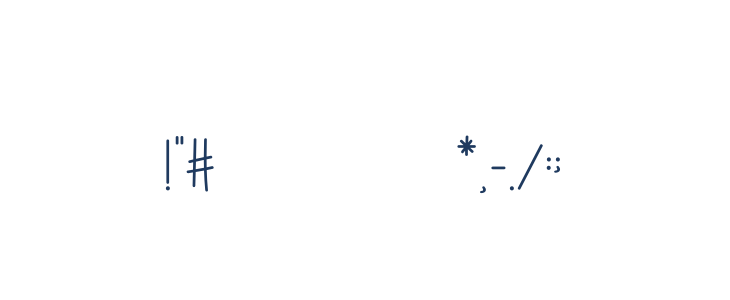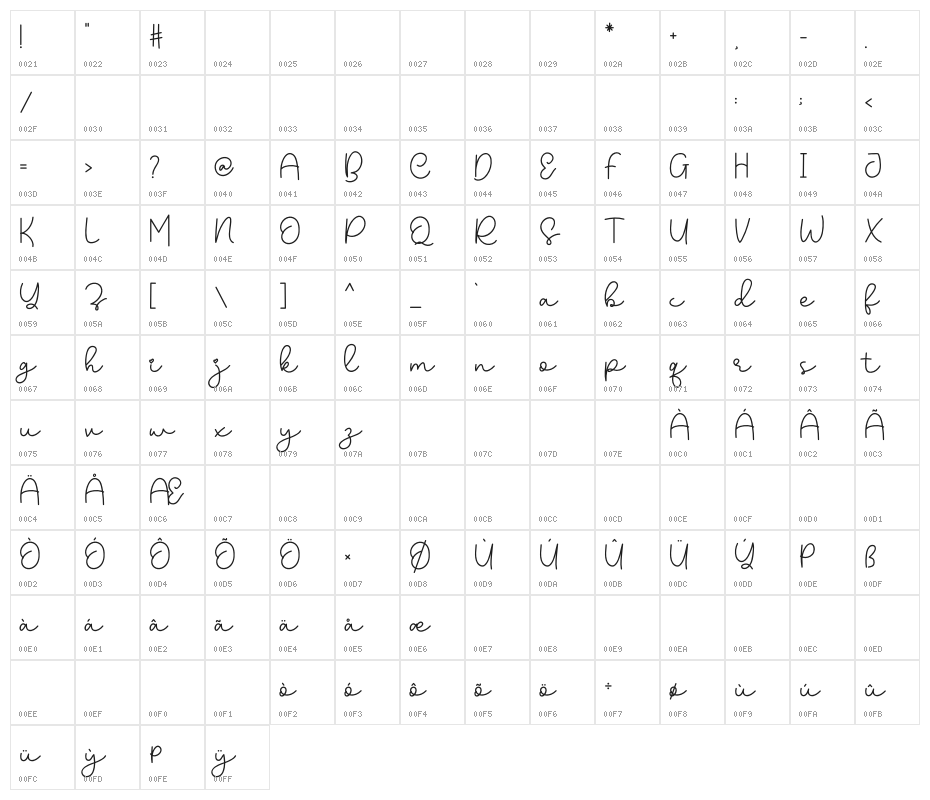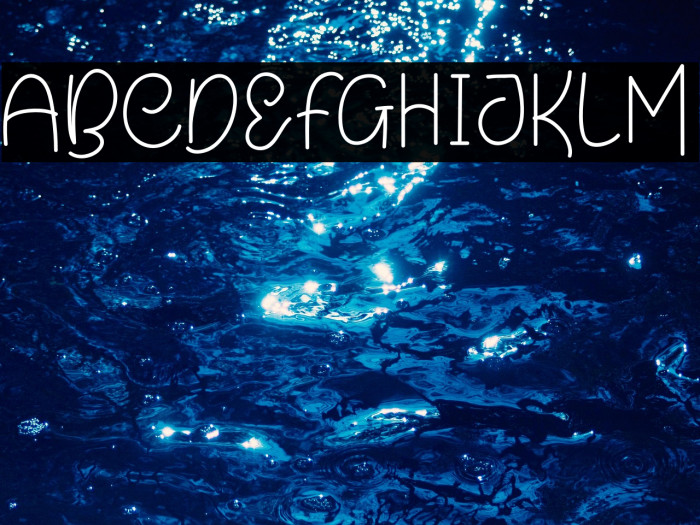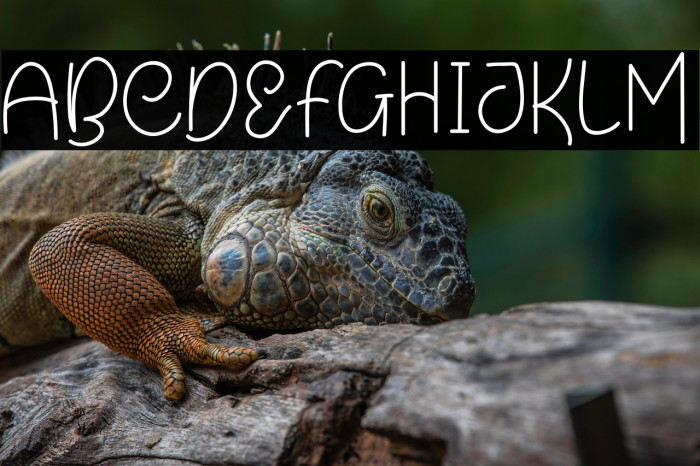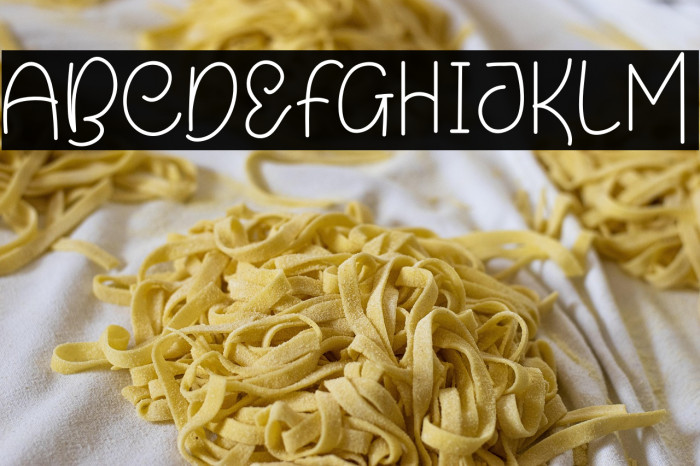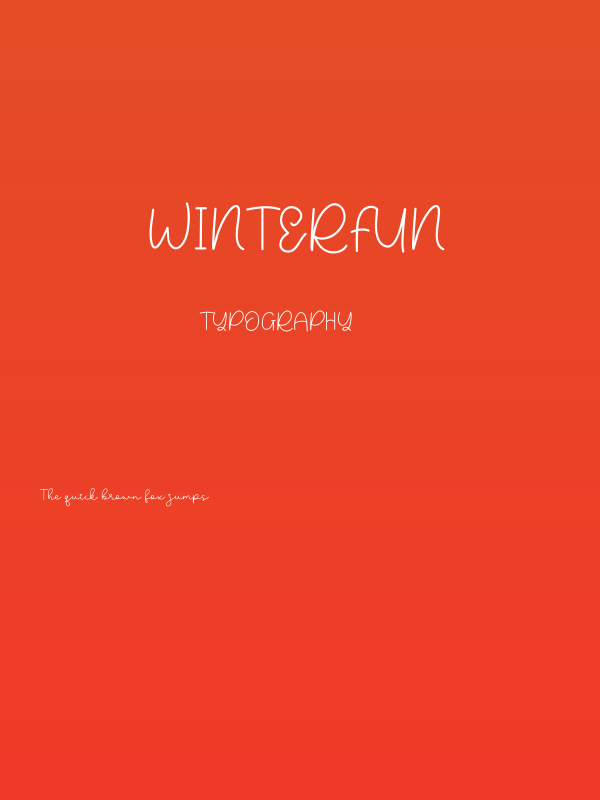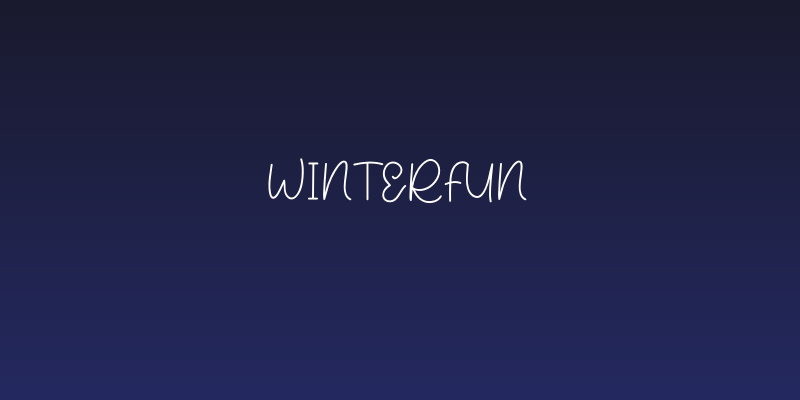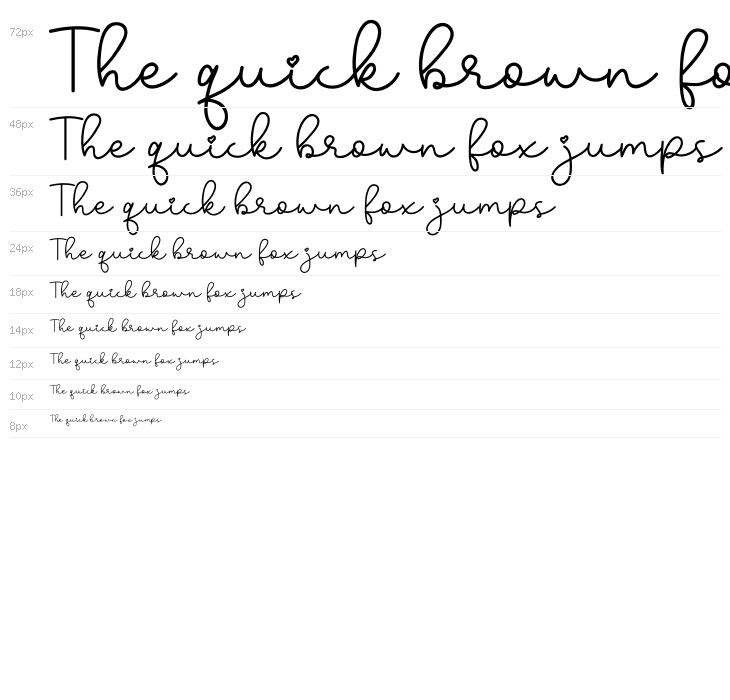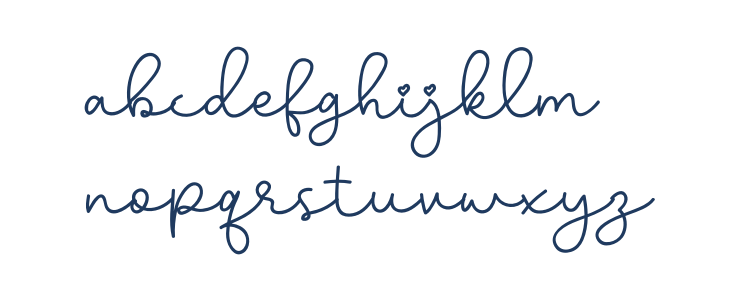
Winterfun Font
Winterfun Description
This playful and whimsical font features a handwritten style with a charming, casual flair. The uppercase letters are tall and slender, with a slight slant that adds a sense of movement and energy. The lowercase letters are more rounded and feature delightful embellishments, such as hearts on the 'i' and 'j', enhancing its playful nature. The font maintains a consistent stroke width, giving it a uniform appearance. Special characters are creatively integrated, maintaining the font's overall playful and informal style. This font is perfect for projects that require a touch of fun and creativity.
| Overall Style | Playful |
| Use Case | Logos, Invitations, Greeting Cards |
| Proposed Projects | Ideal for greeting cards, children's books, playful branding, and creative invitations. |